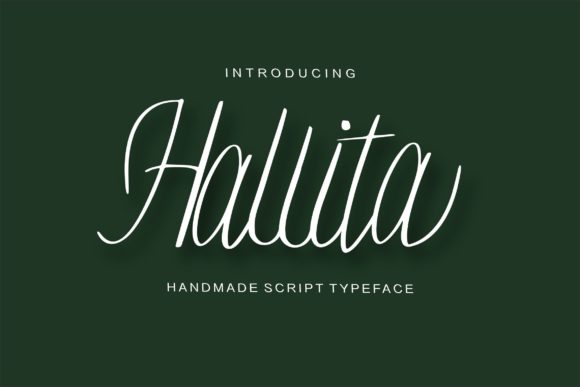
Journey into the Realm of Sophistication with Hallita Script Font: The Epitome of Elegance and Modernity
In the realm of typography, where letters dance and words take form, there exists a font that embodies both grace and modernity: Hallita Script Font. This exquisitely crafted script font is a testament to the power of meticulously balanced strokes and refined curves. As you peruse this collection, let your eyes be captivated by the allure of Hallita Script, a font family that exudes a timeless charm and a fresh, contemporary appeal.
Hallita Script is no mere font; it's an artistic masterpiece that transforms your creative visions into stunning realities. Whether you're a seasoned designer or a typography enthusiast seeking to elevate your projects, Hallita Script is your ideal companion. Its versatility knows no bounds, effortlessly adapting to a symphony of design endeavors, from logos that radiate sophistication to branding elements that leave a lasting impression. Unleash your imagination and explore the endless possibilities that await you with Hallita Script.
From the delicate swirls of its lowercase letters to the bold strokes of its capitals, Hallita Script captivates with its intricate details. Each character is a testament to the font's exceptional craftsmanship, meticulously designed to convey a sense of luxury and refinement. Experience the allure of Hallita Script in your wedding invitations, where its elegant presence adds a touch of romance and timeless beauty. Let your social media posts shimmer with sophistication as Hallita Script graces your words, transforming them into visually captivating expressions.